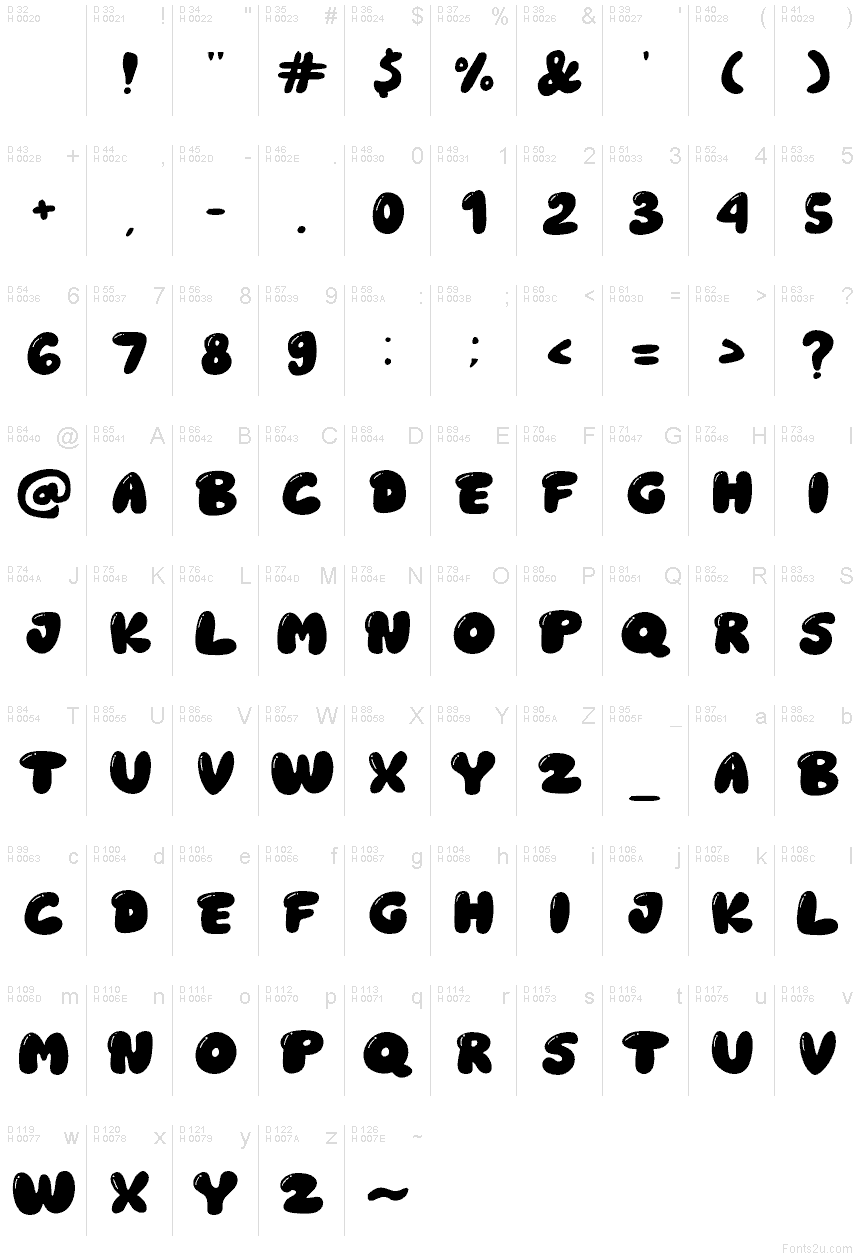
Peace Man font by Origin Type is a free cartoon display typeface. Its plump, inky forms look like they’ve been squeezed from a marker-soft edges, chunky weight, and little “shine” cutouts that give each letter a glossy, wet-paint feel. The rhythm is bouncy but legible, so big words read as friendly blobs rather than chaos.
Using Peace Man, you’ll get instant personality for kids’ posters, snack packaging, birthday invitations, stickers, playful logos, and YouTube thumbnails. This free font loves large sizes, where the bubbly silhouettes and highlights can really pop. Pair it with a simple, narrow sans for captions to keep the spotlight on those joyful, splatty letters.